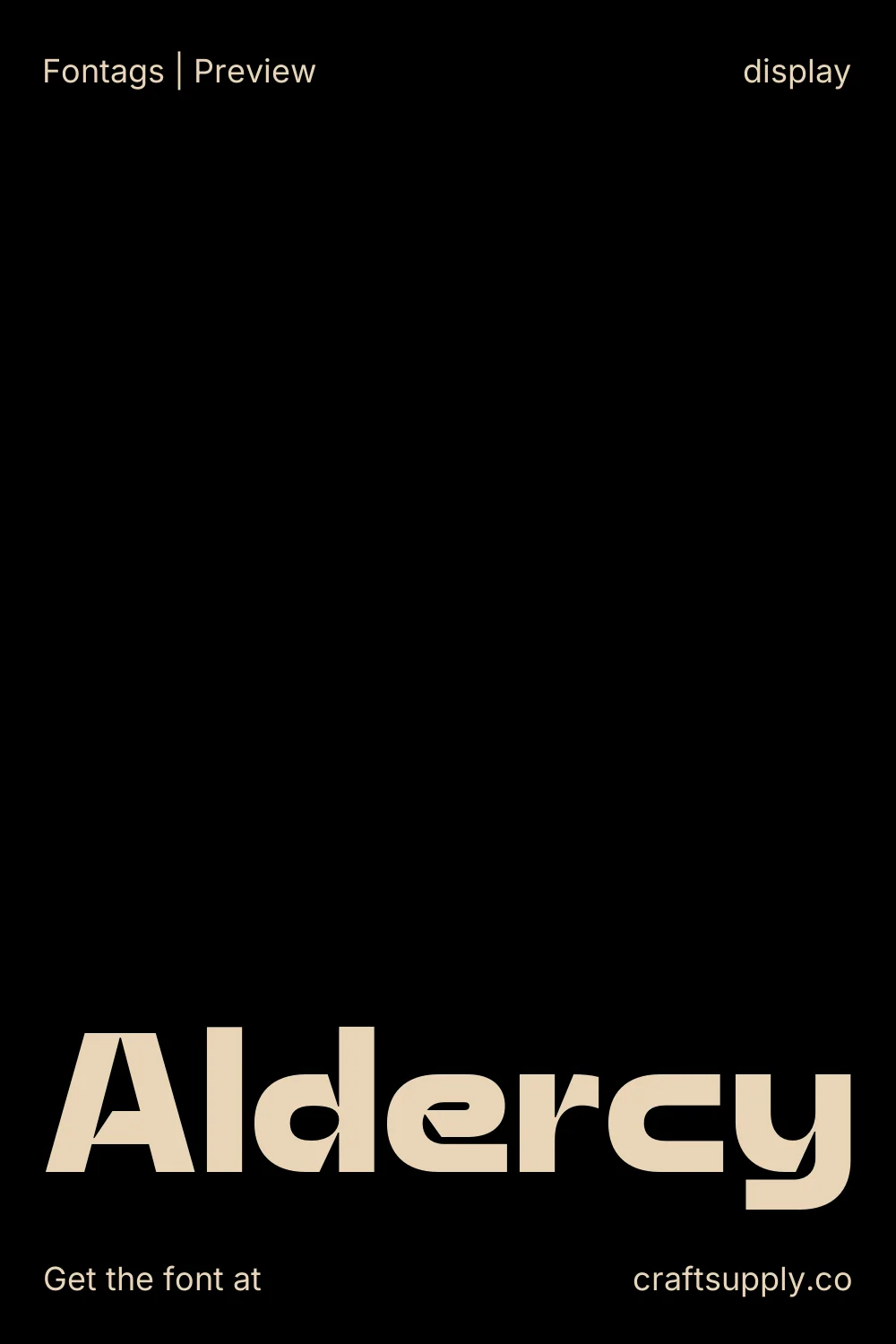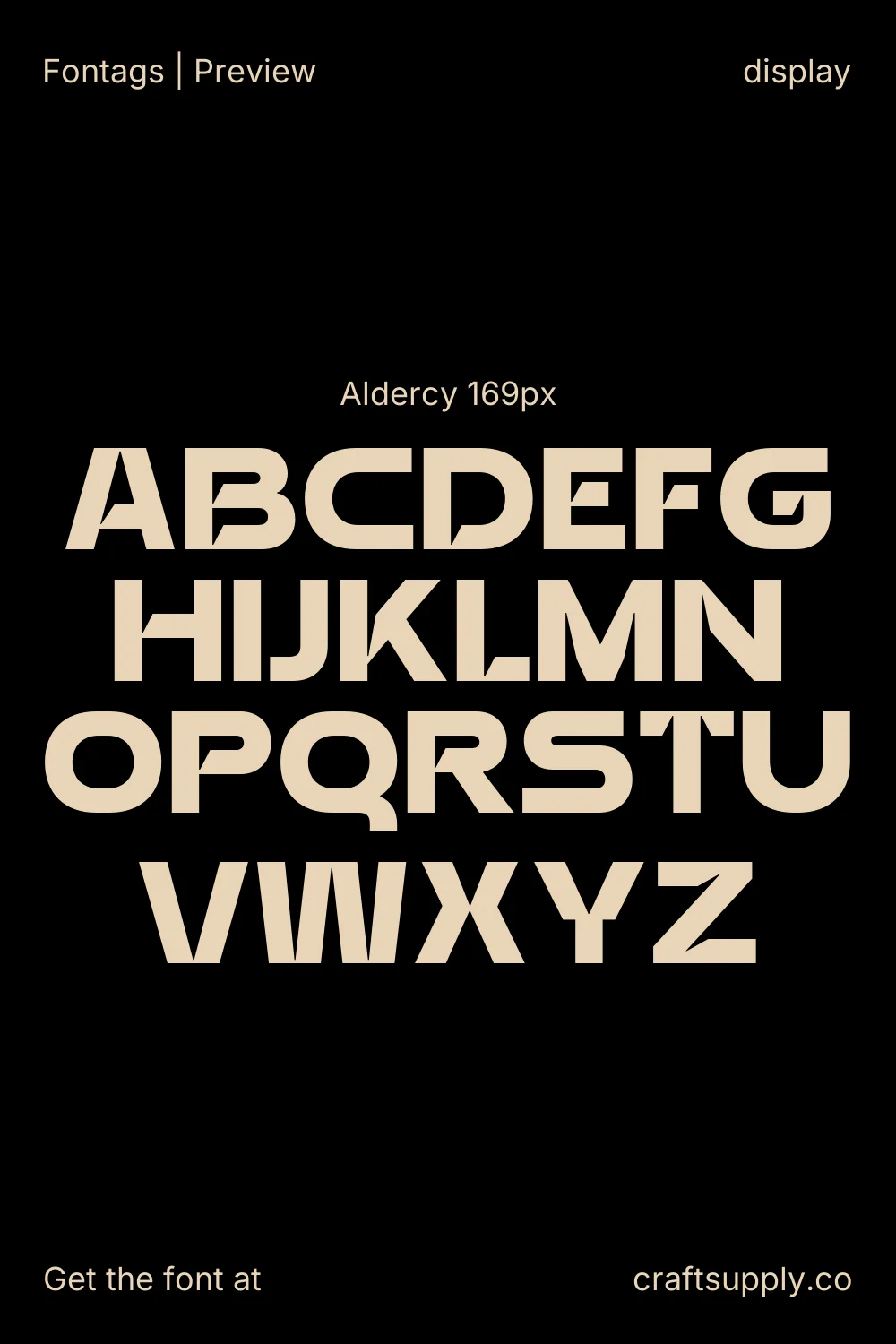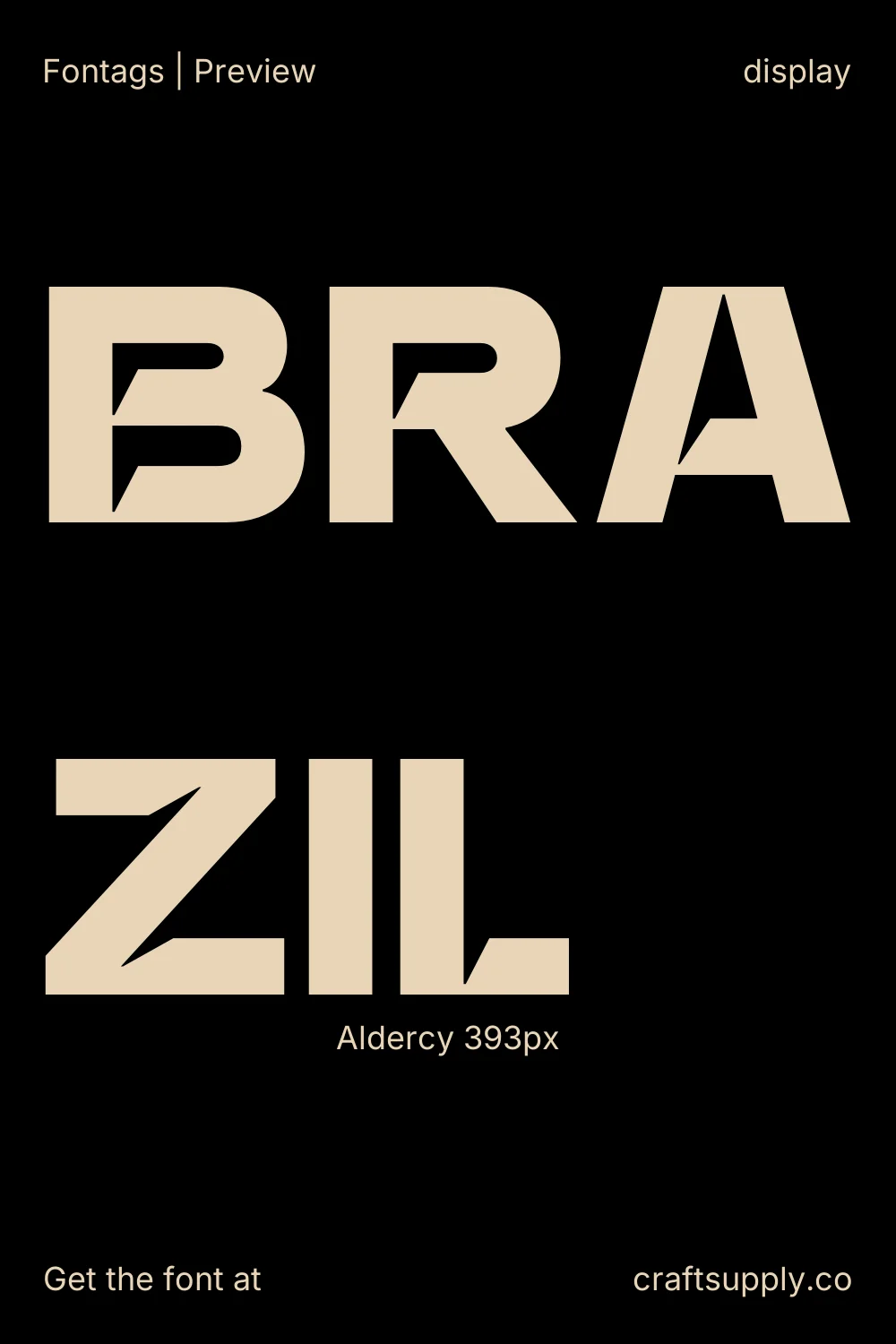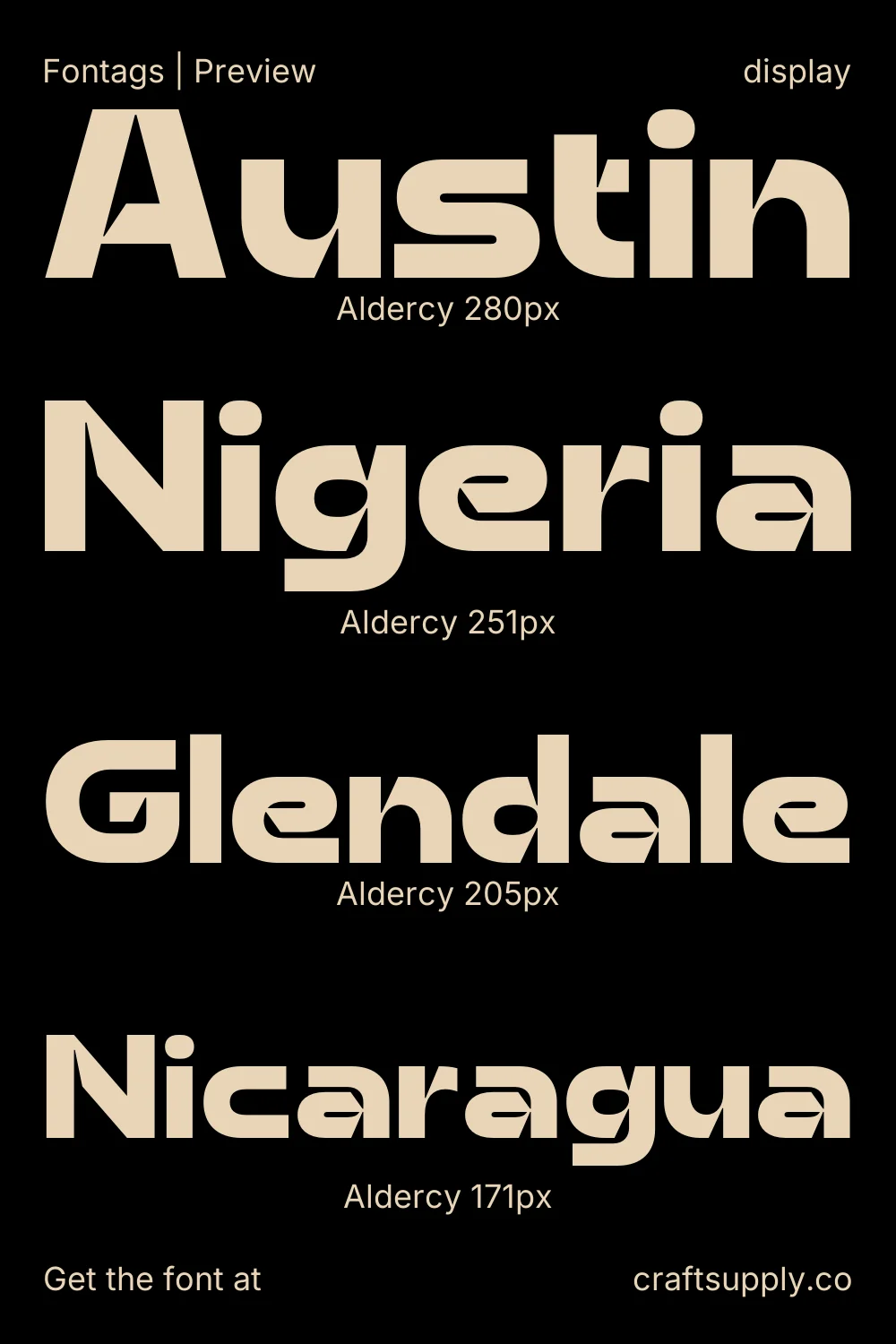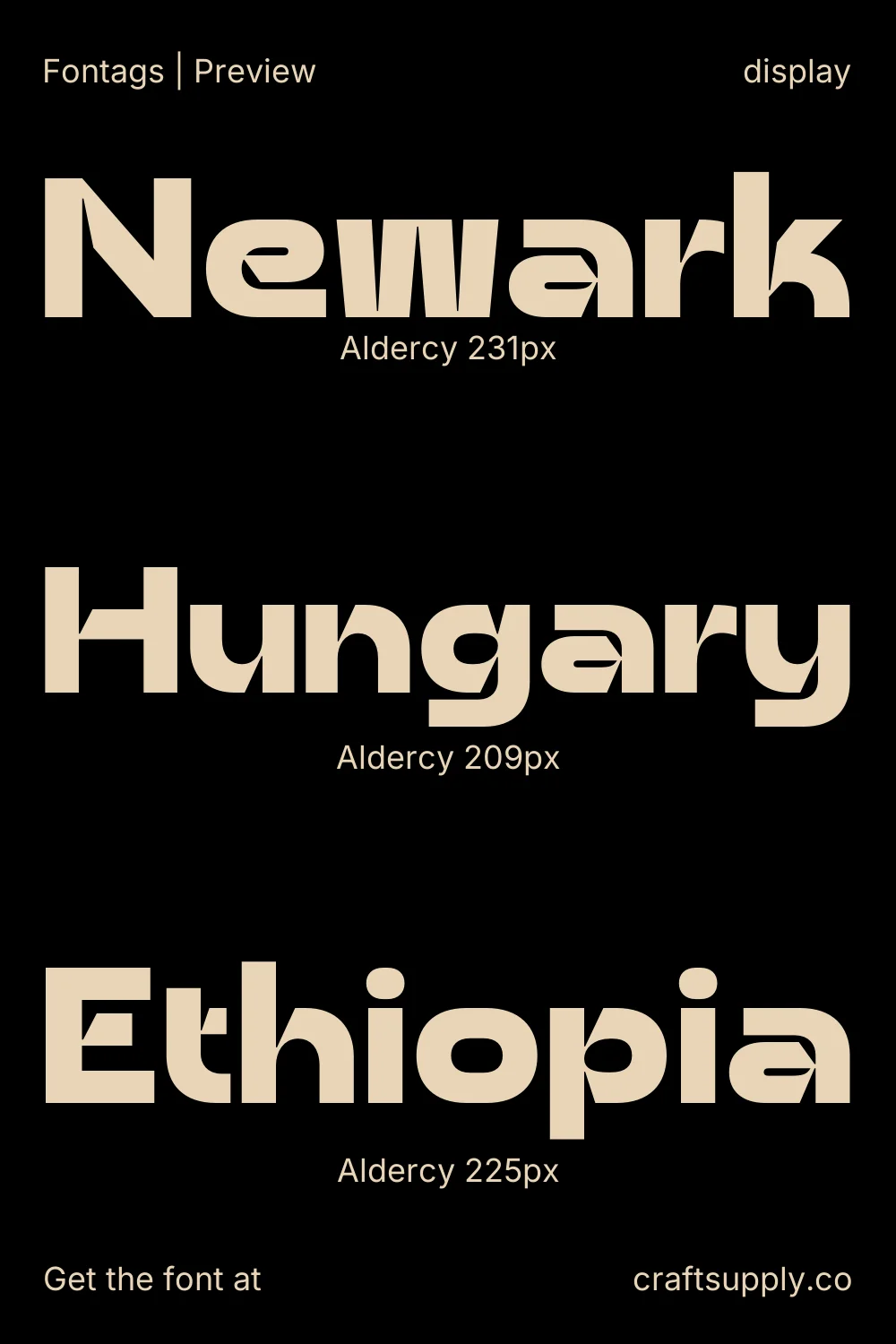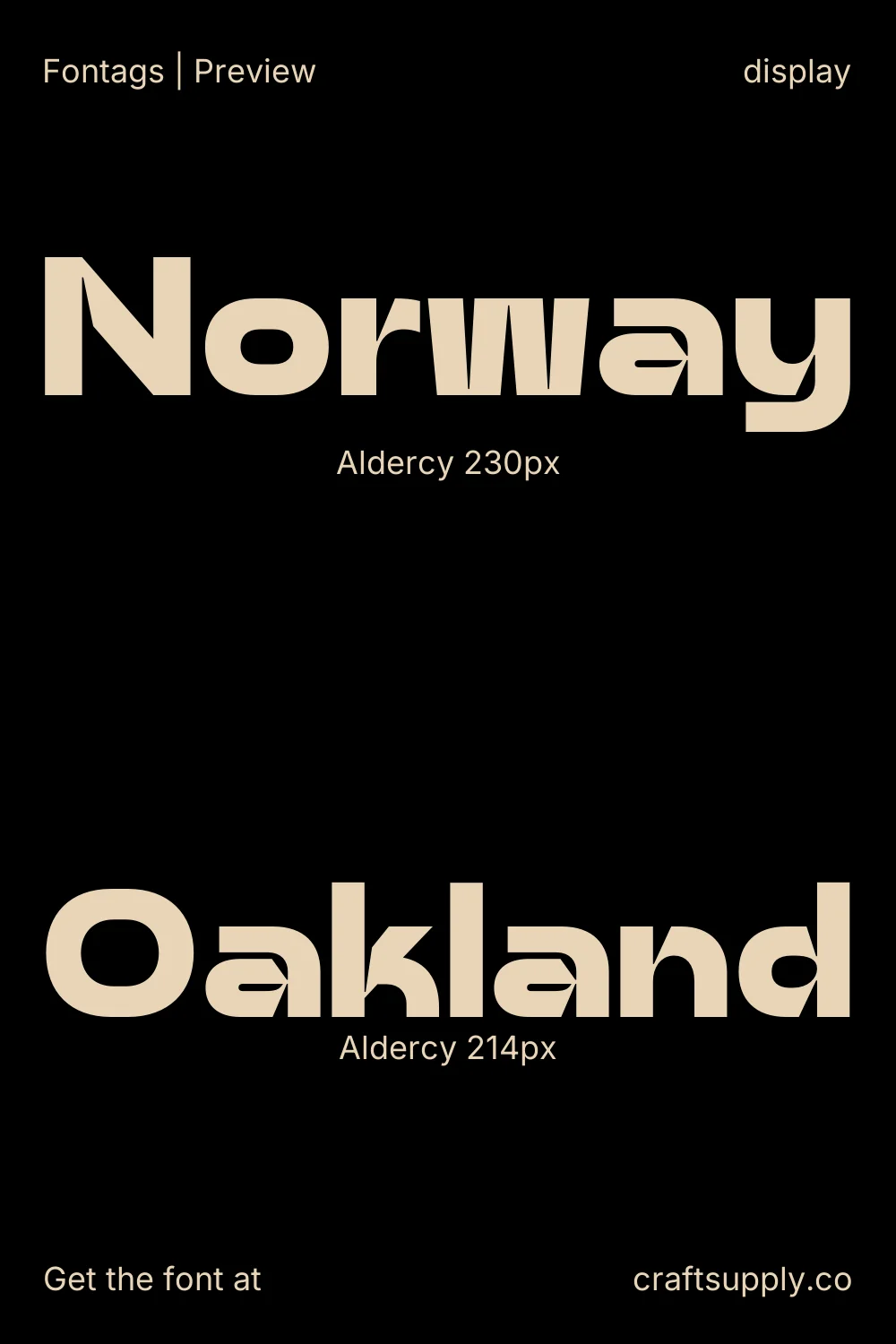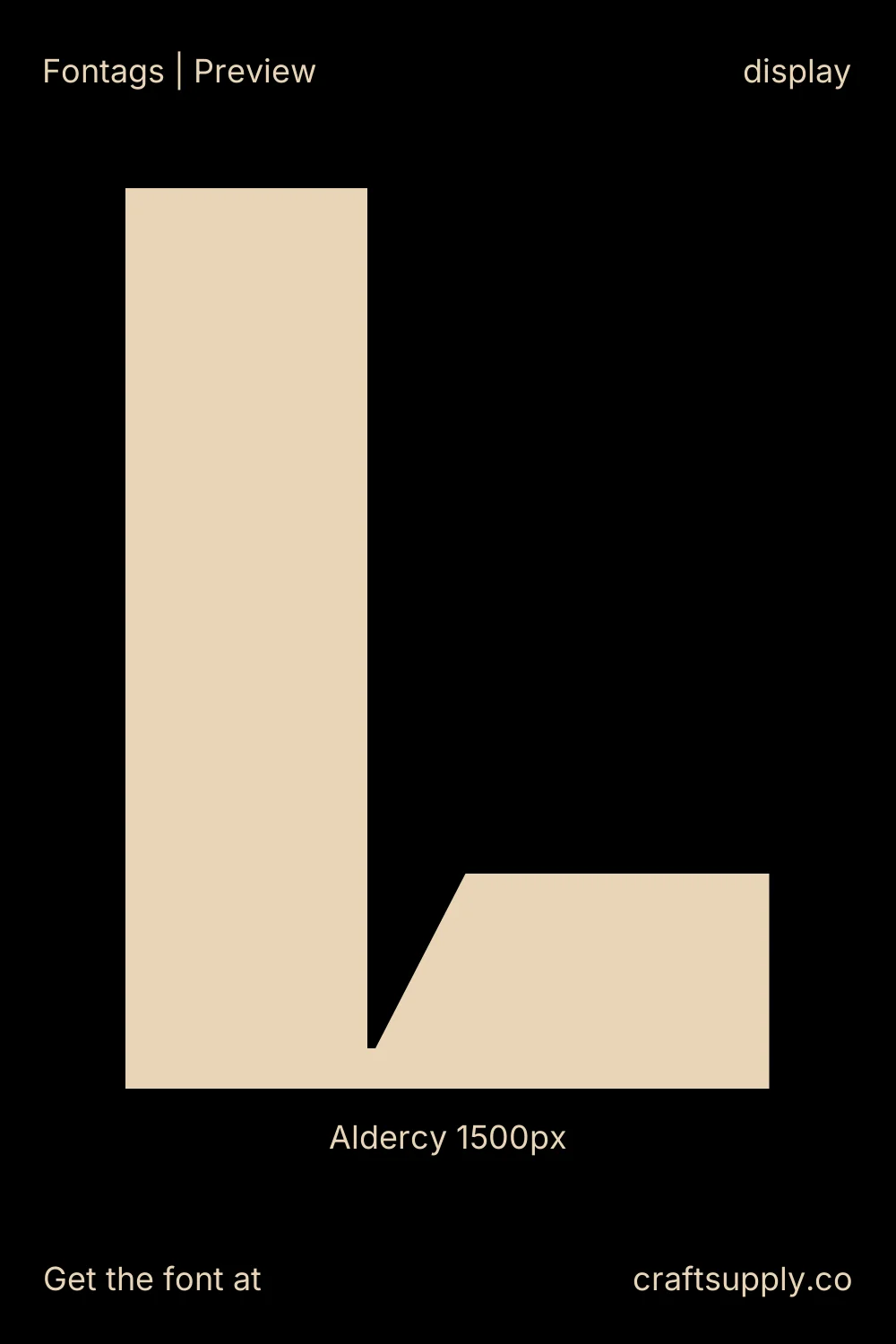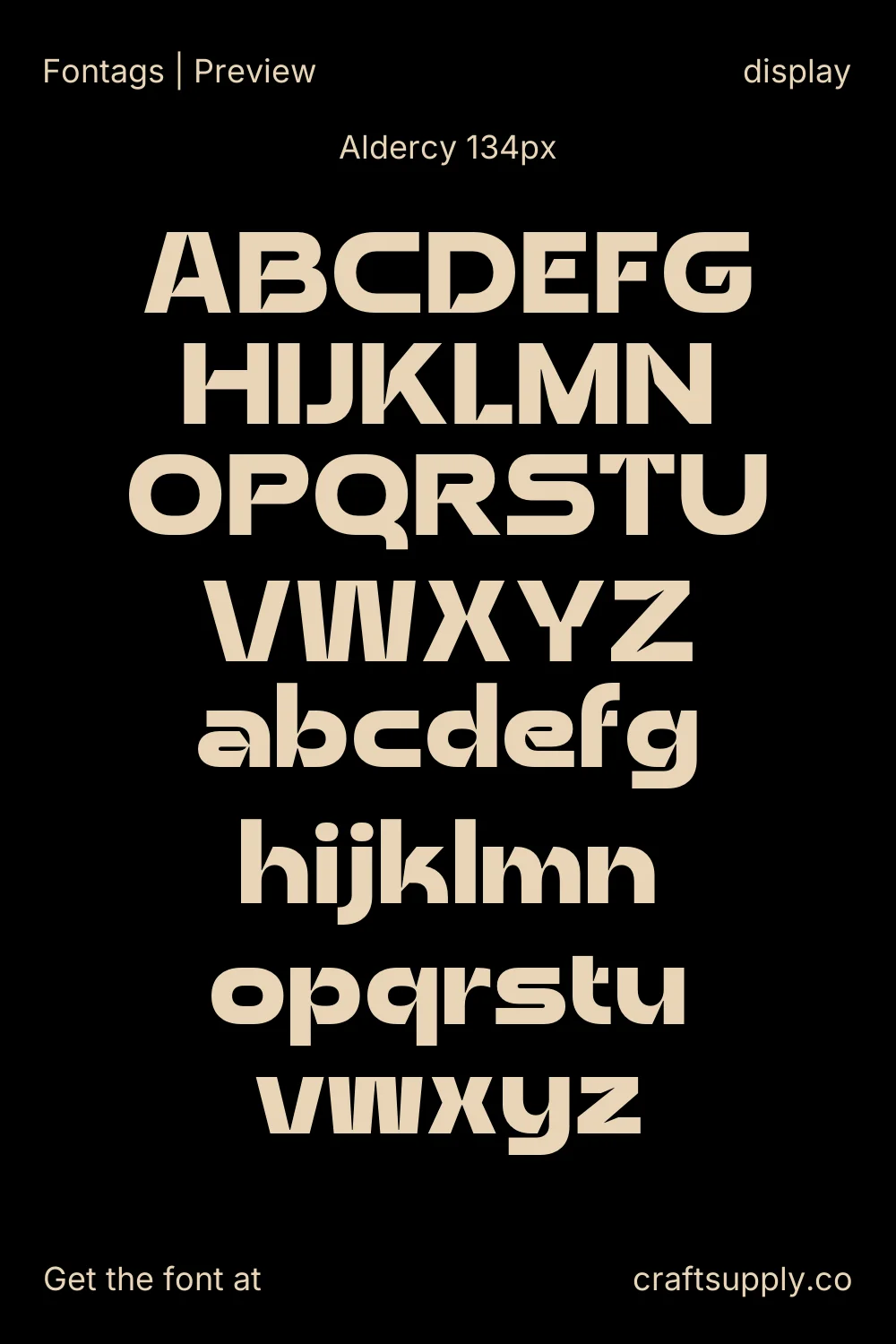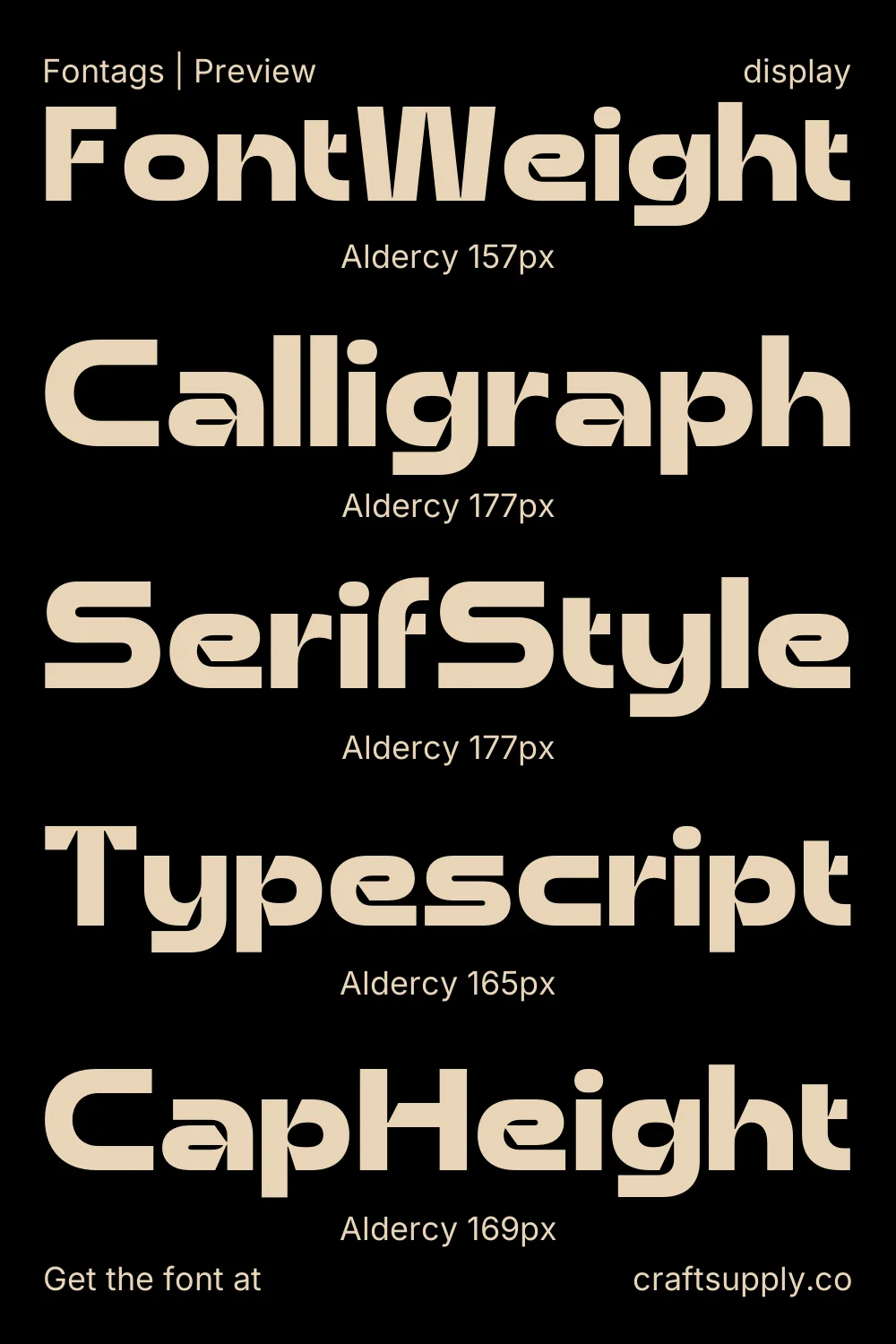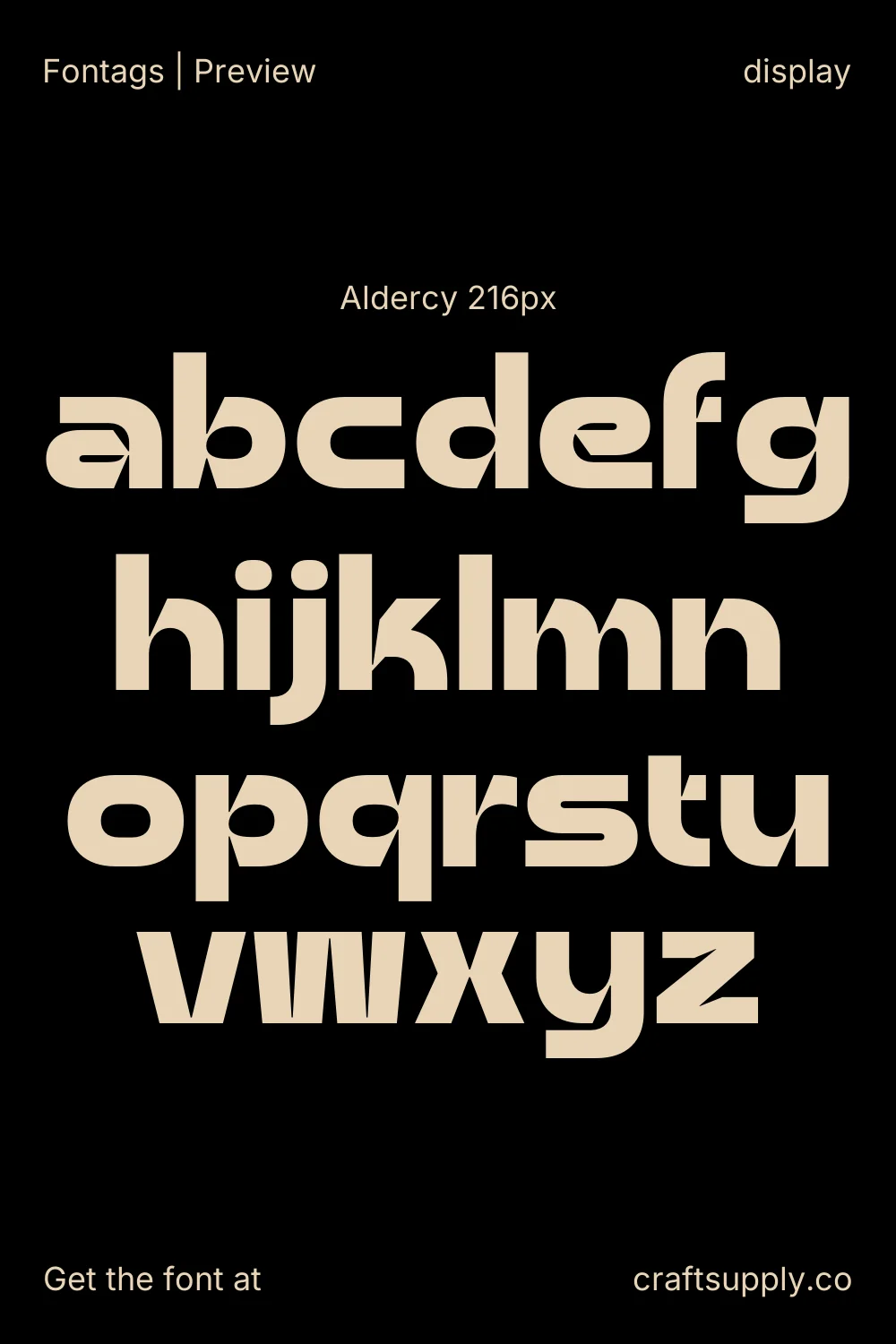
Aldercy
Aldercy is a bold modern sans-serif font with clean lines and a strong, confident presence. Its sleek and stylish design works well for branding, advertising, web design, packaging, and headlines. The font includes regular and italic styles, with multilingual support and PUA encoding for easy use.